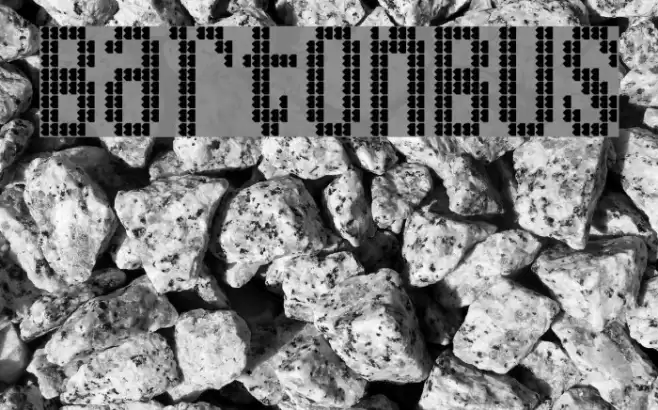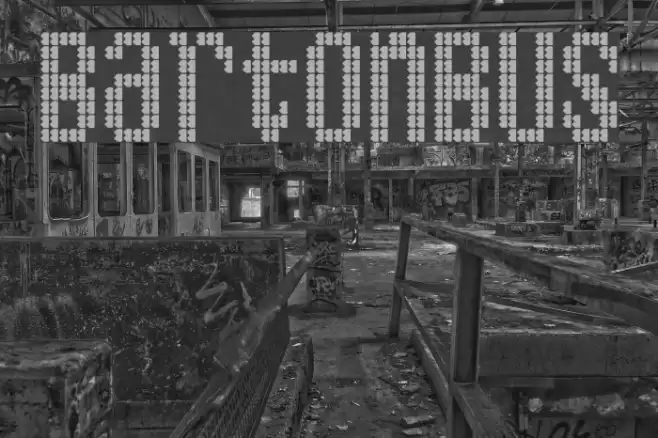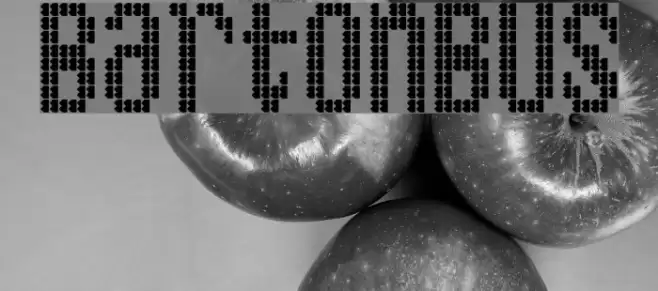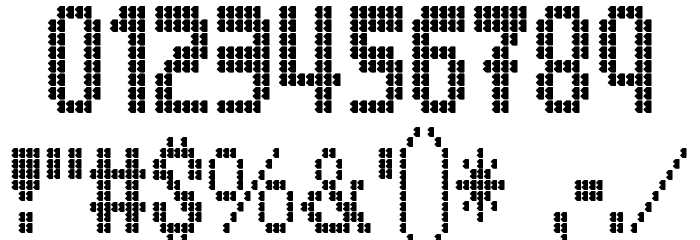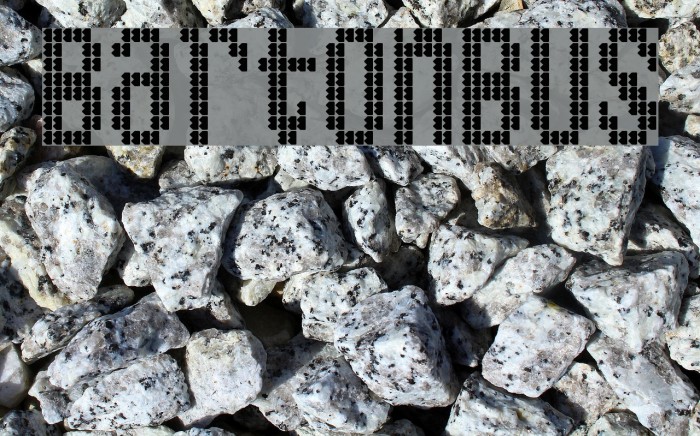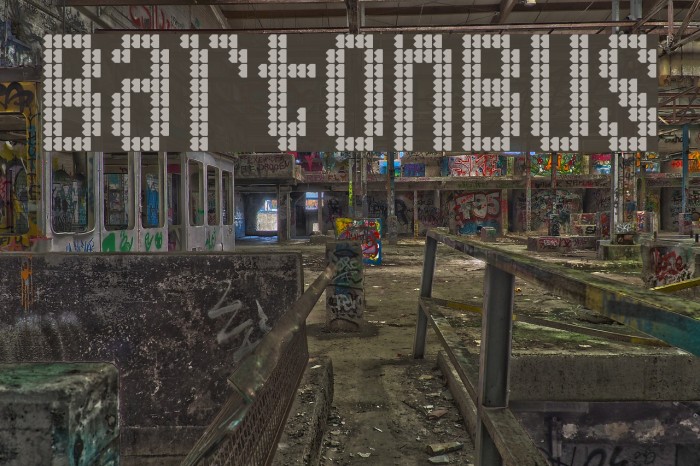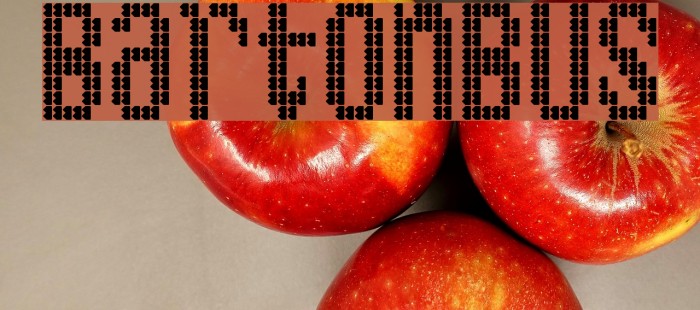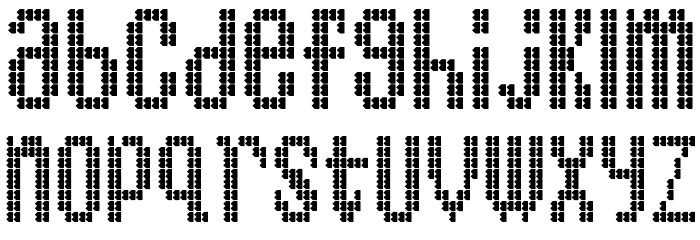
BartonBus Font
BartonBus Description
This font features a unique dot matrix style, reminiscent of old digital displays and scoreboard designs. Each character is constructed from a grid of small, evenly spaced dots, creating a pixelated effect. The uppercase and lowercase letters maintain a consistent height, with the lowercase being slightly smaller. Numbers and special characters follow the same dot pattern, ensuring uniformity across the set. The font's geometric and structured appearance gives it a modern, tech-inspired look, while the dot matrix style adds a nostalgic touch, making it suitable for projects that require a blend of retro and contemporary aesthetics.
A dot matrix style font with a retro digital display look from Pixel fonts.
- Proposed Projects: Ideal for digital-themed designs, retro gaming graphics, tech event posters, and any project requiring a vintage digital aesthetic.